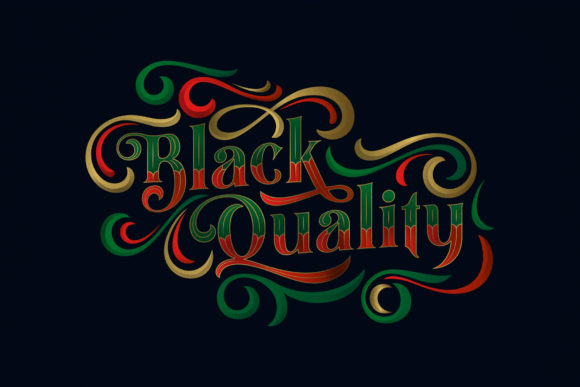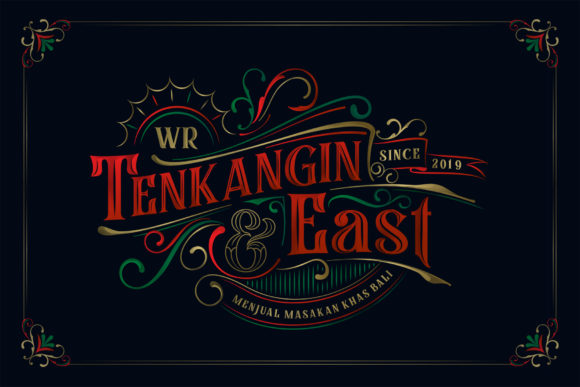
15 Tattoo Fonts Dominating Ink Trends in 2026
As a designer, I’m always inspired by typography that carries strong visual impact and artistic expression. This collection of 15 tattoo fonts dominating ink trends in 2026 features typefaces I personally use for bold lettering concepts, custom artwork, and creative branding projects.
From classic blackletter and gothic styles to modern tattoo-inspired scripts, each font was selected for its distinctive personality, intricate details, and timeless appeal. These typefaces are perfect for tattoo concepts, apparel graphics, posters, logos, merchandise, and alternative design aesthetics.
I carefully choose fonts that combine craftsmanship, individuality, and visual strength, helping every design stand out with confidence, character, and a memorable artistic presence.
Black Quality Tattoo Font
Black Quality is a stunning blackletter font that combines bold Gothic character with striking ornamental details. I enjoy using it for logos, posters, album covers, apparel, branding, and tattoo-inspired artwork because its dramatic lettering instantly captures attention. The decorative flourishes and powerful blackletter style create a distinctive visual presence that makes every design feel bold, artistic, and full of timeless character.
Storm Fighter Tattoo Font
Storm Fighter is a freestyle blackletter font that delivers a bold gothic aesthetic with a dark and mysterious character. I love using it for horror-themed designs, tattoo artwork, gaming graphics, action-inspired branding, apparel, logos, and product packaging because its dramatic lettering creates an intense visual impact. The sharp blackletter details and rebellious style make every design feel powerful, edgy, and unforgettable.
Ghosthey Tattoo Font
Ghosthey is a beautifully detailed blackletter font that combines classic Gothic elegance with bold artistic flair. I enjoy using it for logos, posters, album covers, branding, apparel, and tattoo-inspired designs because its intricate lettering creates a dramatic and memorable visual impact. The ornate details and strong blackletter character give every project a distinctive, timeless style that feels both sophisticated and powerful.
Underdove Tattoo Font
Underdove is a sophisticated blackletter typeface that blends Victorian-era elegance with bold Gothic authority. I love using it for branding, editorial layouts, packaging, posters, book covers, luxury labels, and vintage-inspired designs because its intricate flourishes and engraved-style details create a powerful visual presence. The combination of classic blackletter structure, ornamental swashes, and timeless craftsmanship gives every project a refined, majestic, and unforgettable character.
Amstrong Tattoo Font
Amstrong is a classy vintage typeface that blends elegance, sophistication, and timeless character. I enjoy using it for logos, branding, packaging, invitations, editorial layouts, posters, and luxury-themed projects because its distinctive letterforms create a refined and memorable visual presence. The combination of uppercase and lowercase characters, along with its beautiful alternative glyphs, offers endless creative possibilities, allowing designers to craft unique compositions with a stylish vintage flair.
Old English Tattoo Font
Old English is a classic antique blackletter font that captures the rich atmosphere of medieval typography. I love using it for historical-themed projects, book covers, certificates, posters, branding, and vintage-inspired designs because its ornate Gothic letterforms create a timeless and authentic look. The distinctive medieval character adds elegance, drama, and a strong historical presence that makes every design feel unique and memorable.
Mister Honey Tattoo Font
Mister Honey is a Victorian-inspired blackletter font with a distinctive and elegant gothic style. Perfect for logos, branding, posters, packaging, tattoos, and vintage-themed designs, it delivers a strong historical aesthetic with refined detail. Ideal for modern blackletter typography, Mister Honey adds a bold, classic, and sophisticated touch to any creative project.
Black Mild Tattoo Font
Black Mild is a distinct blackletter font with a bold and refined gothic style. Perfect for logos, branding, posters, tattoos, apparel, and vintage-inspired designs, it delivers a strong visual presence with classic typographic character. Ideal for modern gothic and blackletter typography, Black Mild adds depth, elegance, and a striking traditional feel to any creative project.
Tattoo Studio Tattoo Font
Tattoo Studio is a meticulously crafted blackletter script font inspired by the artistry of tattoo culture. With expressive strokes, refined curves, and carefully designed details, it delivers a bold and contemporary gothic aesthetic. Perfect for tattoo studios, metal and punk-inspired t-shirt designs, logos, branding, posters, and edgy creative projects, this font brings a powerful and authentic inked feel to any design. Ideal for modern blackletter typography, Tattoo Studio embodies the spirit of hardcore artistic expression.
Black Deamond Tattoo Font
Black Deamond is a bold blackletter stencil typeface that masterfully combines gothic tradition with a modern rebellious edge. I love using it for band logos, album covers, dark-themed branding, posters, apparel, and merchandise because its distinctive lettering creates a powerful visual impact. The fusion of medieval blackletter elegance and rugged stencil elements gives every design a dramatic, vintage-inspired character that feels bold, mysterious, and unforgettable.
Melon Honey Tattoo Font
Melon Honey is a distinctive blackletter font that combines intricate detailing with a bold Gothic aesthetic. I enjoy using it for logos, posters, album covers, branding, apparel, and decorative typography because its elaborate letterforms create a strong visual impact. The rich blackletter style and carefully crafted details give every design a unique, dramatic, and artistic character that stands out with confidence and elegance.
Bull Stand Tattoo Font
Bull Stand Victorian is a distinctive and ornate typeface inspired by the elegance and intricate craftsmanship of the Victorian era. Rich in decorative detail and classic styling, it brings a refined historical charm to any design. Perfect for logos, branding, posters, packaging, invitations, and editorial layouts, this font adds a timeless and sophisticated Victorian aesthetic to modern creative projects.
Belong Faith Tattoo Font
Belong Faith is an assertive and powerful font with a strong, detailed design that commands attention. Perfect for logos, branding, posters, headlines, apparel, and bold creative projects, it delivers a confident and impactful visual style. Ideal for modern display typography, Belong Faith enhances designs with its striking presence and professional edge.
Ducky Black Tattoo Font
Ducky Black is a bold vintage blackletter stencil typeface that blends classic gothic elegance with a rugged industrial style. Featuring sharp edges, dramatic strokes, and stencil-inspired cutouts, it delivers a powerful and historic aesthetic. Perfect for branding, tattoos, packaging, posters, signage, apparel, and vintage-inspired designs, Ducky Black adds depth, authenticity, and striking visual impact to any creative project.
The Mariam Story Tattoo Font
The Mariam Story is a gothic-style blackletter font with a bold and imposing character. Designed to create a strong visual impact, it makes every design stand out with a distinctive and dramatic aesthetic. Perfect for logos, branding, posters, tattoos, apparel, and vintage-inspired projects, this font adds confidence, depth, and striking gothic elegance to any creative work.